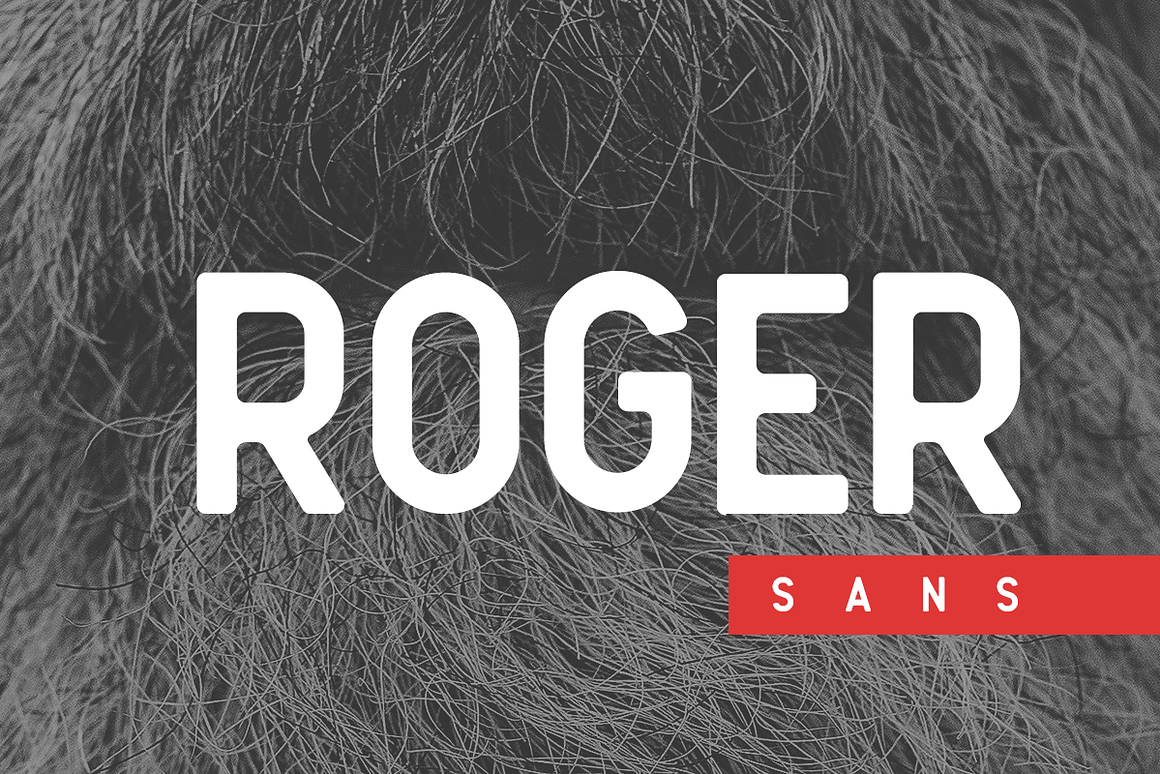
Roger Sans Font
Roger Sans Font is perfectly suited for corporate communications, professional website design, clean editorial layouts, business presentations, financial reports, modern signage systems, user interface design, technical documentation, and contemporary advertising materials.
What makes Roger Sans Font so exciting is its exceptional clarity and professional elegance that makes complex information instantly accessible and visually appealing. This outstanding sans-serif typeface combines the functionality of classic Swiss typography with contemporary design sensibilities, creating letterforms that are both highly readable and aesthetically pleasing. The font's clean geometric foundation and subtle humanist details ensure optimal performance across all media while maintaining a distinctive character that sets it apart from generic corporate fonts. Roger Sans Font stands out through its ability to convey professionalism, trustworthiness, and modern efficiency, making it perfect for organizations and brands that need to communicate clearly and effectively while projecting competence and reliability to their audiences.
The Roger Sans Font family includes Thin, Light, Regular, Medium, Bold, and Extra Bold weights, each available in both roman and italic styles. This comprehensive family also features condensed variations, providing designers with extensive options for creating sophisticated information hierarchies and space-efficient layouts in challenging design environments.
When you choose Roger Sans Font Free Download, you're selecting a typeface that delivers exceptional performance and professional credibility for serious business communications. This font excels in creating clear, authoritative designs that need to convey expertise and reliability. Its neutral yet distinctive appearance makes it particularly effective for financial institutions, technology companies, and professional services that require typography that builds trust while remaining highly functional.
The technical excellence of Roger Sans Font includes a comprehensive character set supporting multiple languages, advanced OpenType features, and precision-tuned spacing for optimal readability at all sizes. The font has been extensively tested across digital and print applications, ensuring consistent performance in demanding professional environments where clarity and reliability are essential for effective communication.
Whether you're designing annual reports, developing corporate websites, creating professional presentations, or building comprehensive brand guidelines, Roger Sans Font provides the perfect combination of functional excellence and contemporary style that ensures your communications are clear, credible, and professionally compelling for modern business audiences.